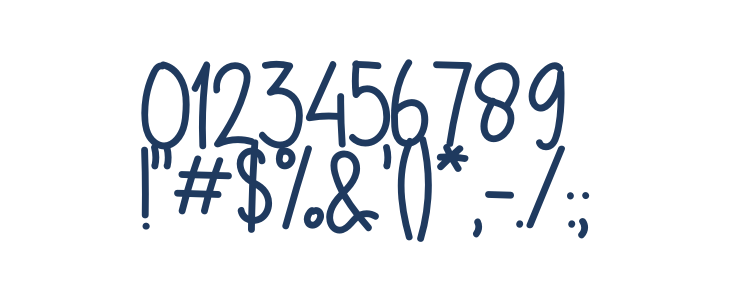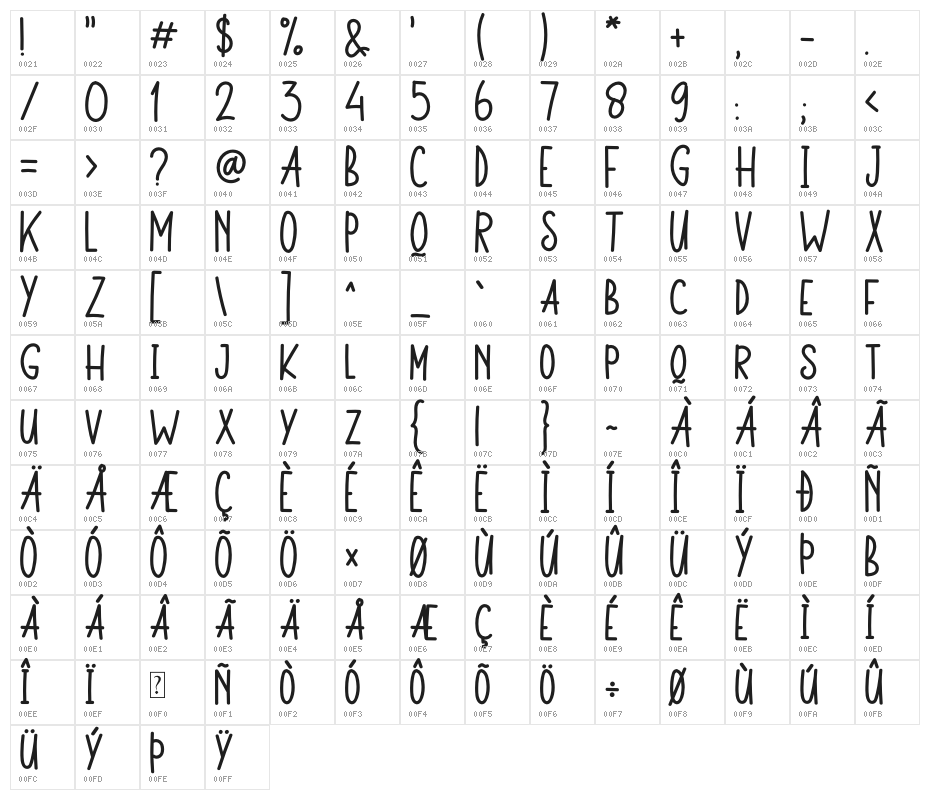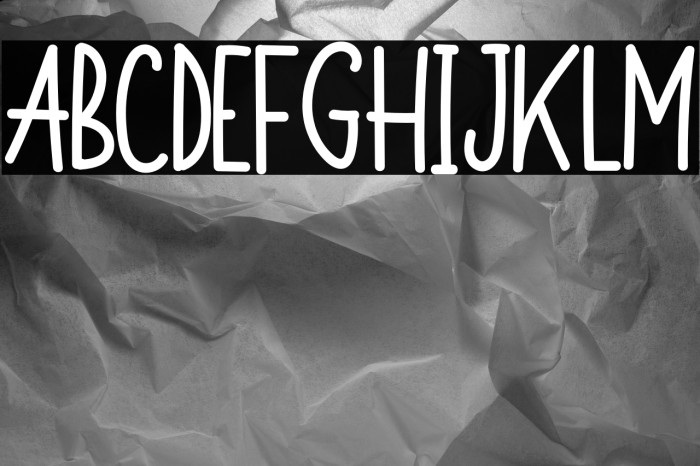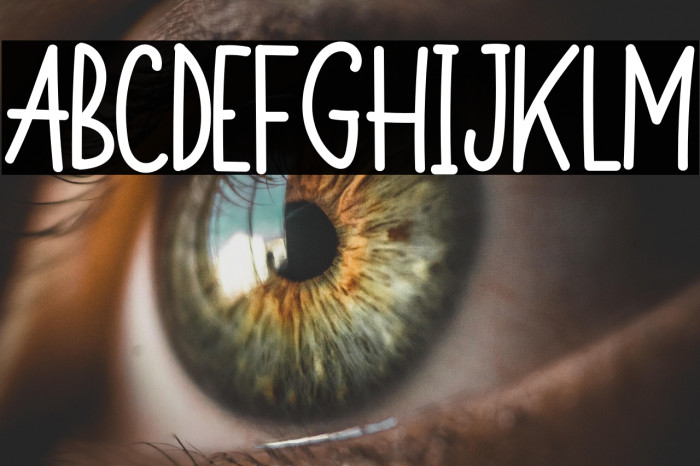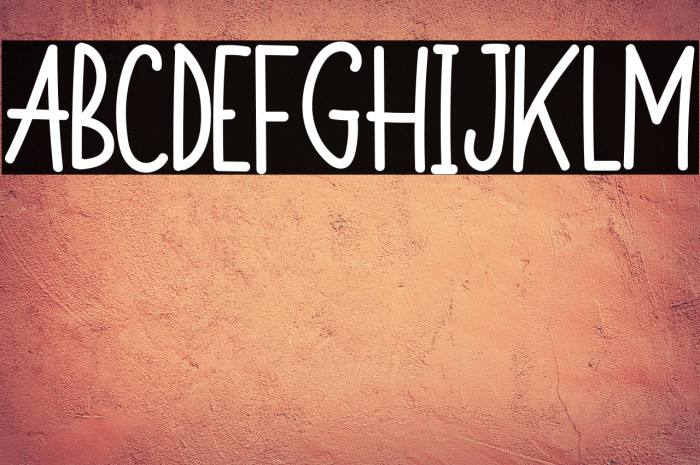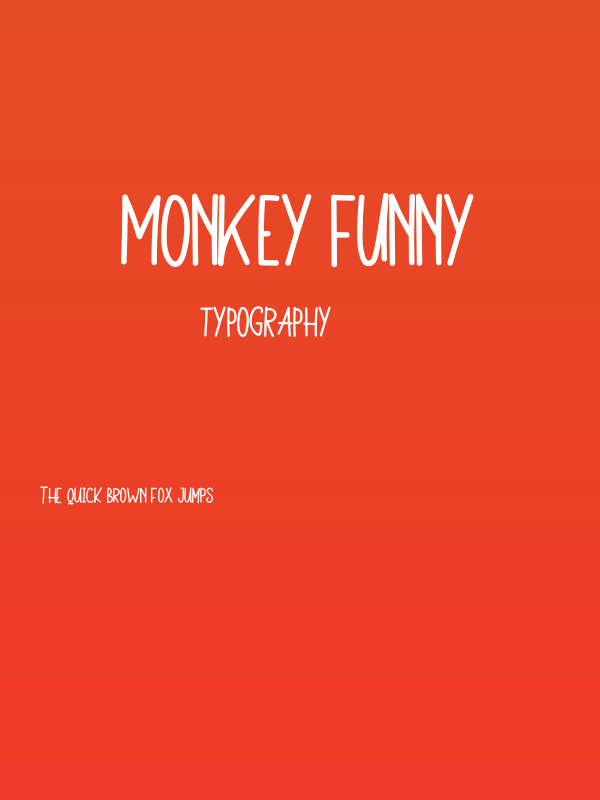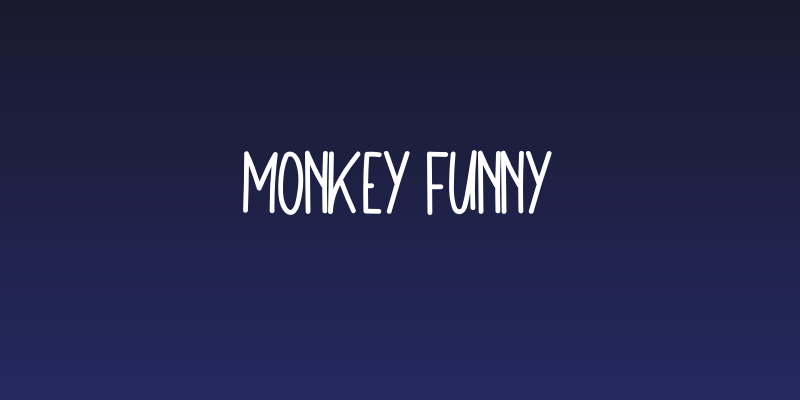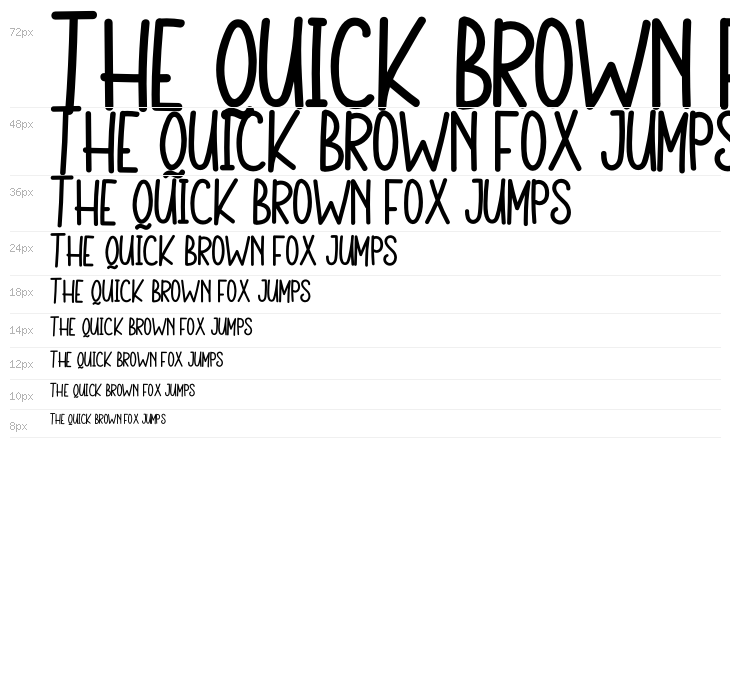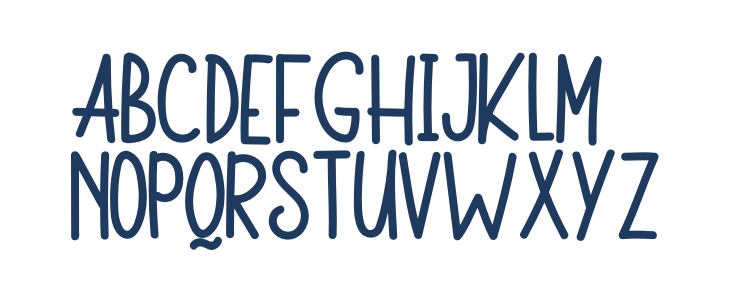
Monkey Funny Font
Monkey Funny Description
This playful and whimsical font features tall, narrow letters with a handwritten style, giving it a casual and friendly appearance. The characters are slightly irregular, adding to the charm and personality of the design. The uppercase and lowercase letters maintain a consistent height, while the numbers and special characters are bold and easily distinguishable. The strokes are smooth and rounded, contributing to the overall approachable feel of the font. It's perfect for projects that require a touch of fun and creativity.
| Proposed Projects | Ideal for children's books, greeting cards, playful branding, and social media graphics. |